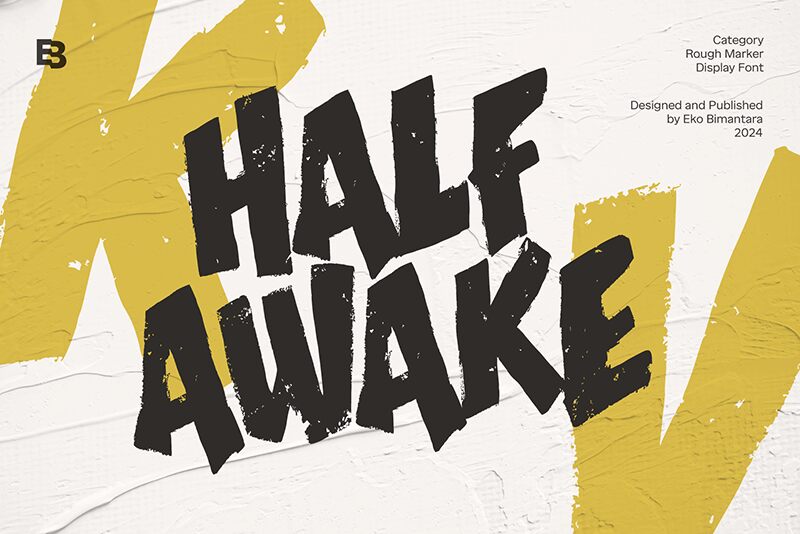
Half Awake Trial
Half Awake font is a condensed, bold brush font that exhibits an energetic vibe with its edgy and distressed texture. Designed by Eko Bimantara, this grunge-style typeface carries modern street art influences which contribute to its contemporary aesthetic. Being casual yet quite expressive in its style, Half awake will grab the attention of readers.
Use it for branding texts, as well as for advertising, packaging design, promotional posters & banners. This free condensed font is also ideal for print projects like magazine covers and flyers. Other possible applications include blog headers & titles and typographic logotype design.